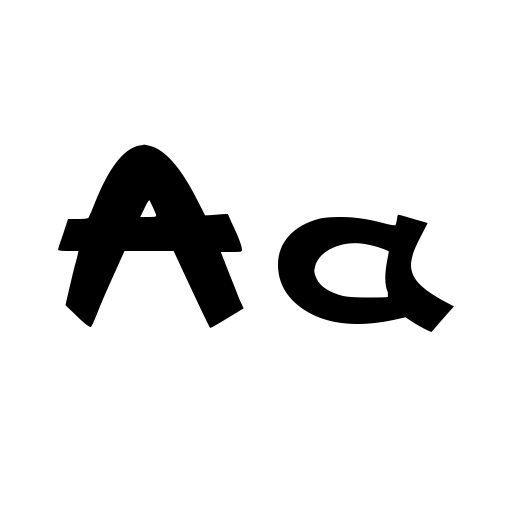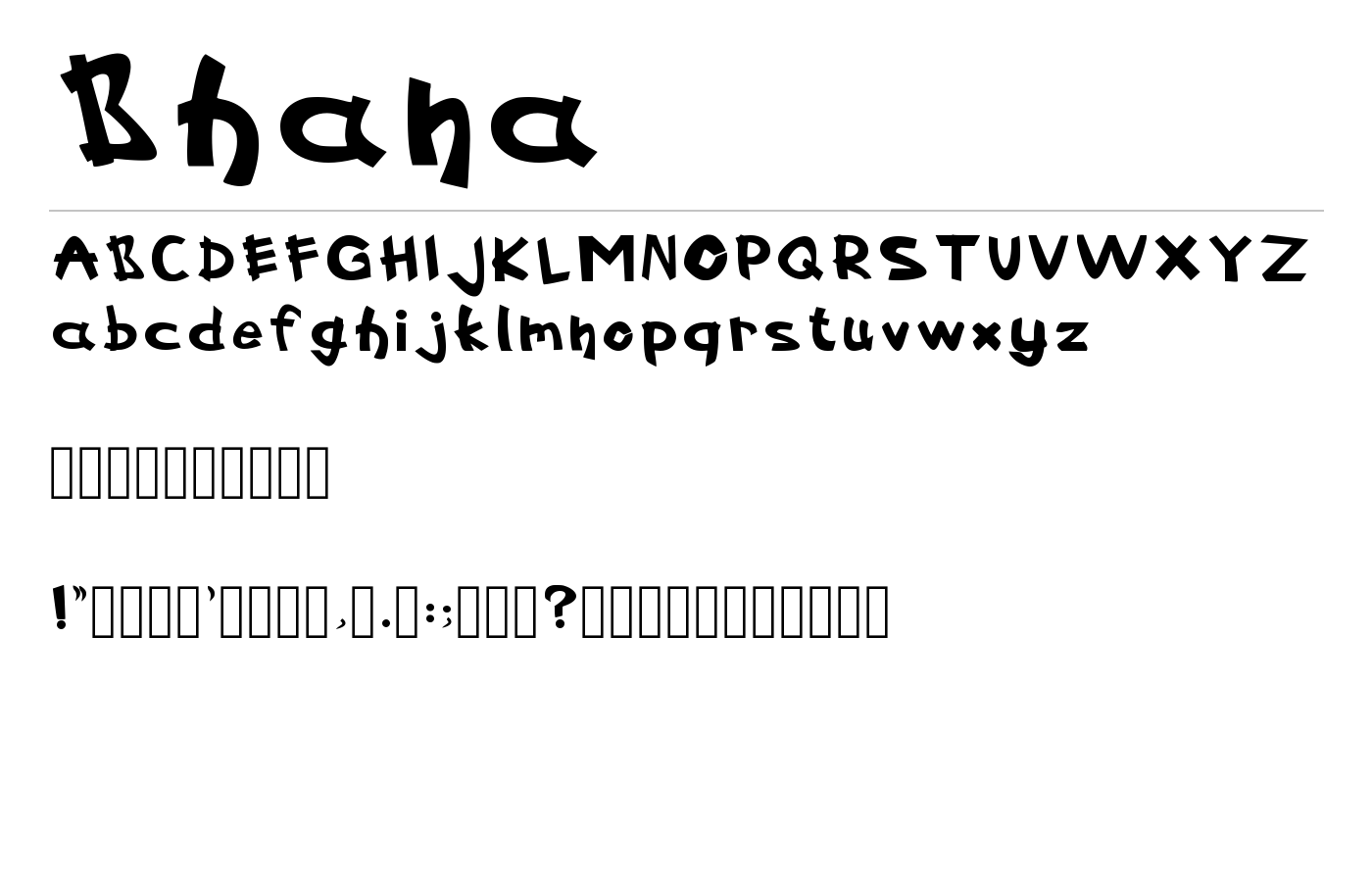
Bhana is a playful and quirky sans serif font characterized by its irregular, hand-drawn letterforms and strong, bold strokes. Its unique angles and uneven shapes give it a casual and energetic vibe, making it perfect for creative projects, posters, children's books, or any design that seeks a fun, informal personality. This font works best in headlines or display text where its distinctive style can truly stand out.
Bhana Font